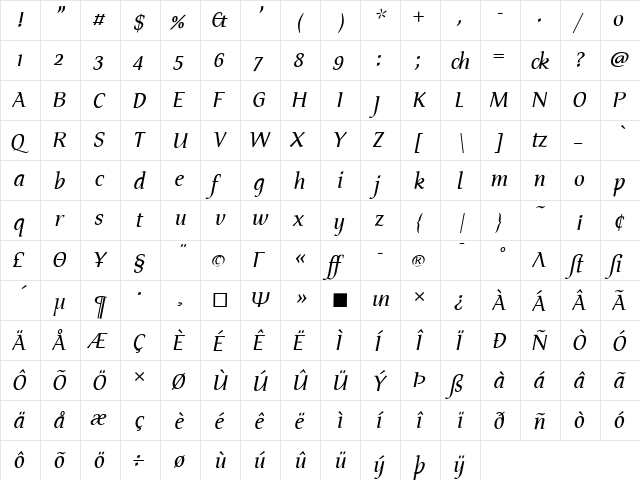
TarquiniusPlus Italic
Design Context for TarquiniusPlus Typeface
TarquiniusPlus takes a measured approach to typography — its balanced proportions and neutral character make it a reliable workhorse for both digital and print work. The dynamic lean of this cut emphasises speed and emphasis in any layout.
Pro Tip: Try TarquiniusPlus for annotation and caption copy alongside an upright companion — the contrast in angle creates a dynamic but ordered typographic system.